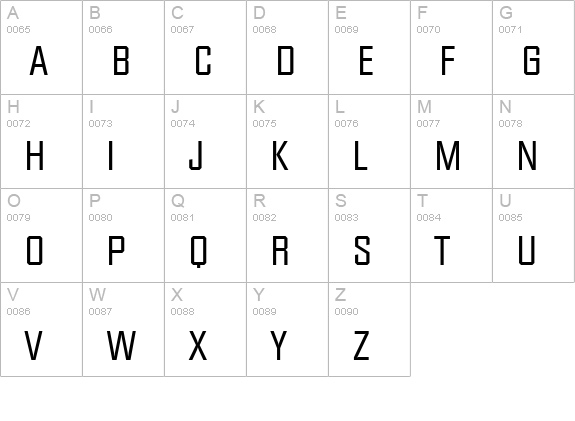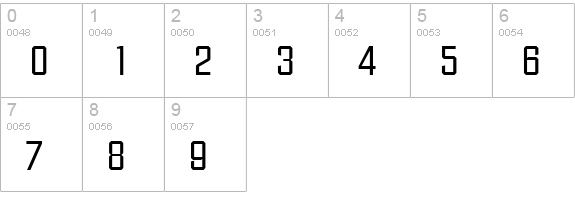
DiamanteSerial-Regular is the standard, neutral variant in the DiamanteSerial typeface family \xE2\x80\x94 well suited to general body text, paragraphs, and standard typographic work.
DiamanteSerial-Regular font is a stylish and elegant typeface that exudes sophistication and charm. With its clean lines and graceful curves, this font is perfect for adding a touch of class to any design project. Whether you're working on a logo, invitation, or website, DiamanteSerial-Regular font will make your text stand out and leave a lasting impression. The best part about DiamanteSerial-Regular font is that it is available for free download at FontsMarket.com. You can easily access this beautiful font and use it in your projects without any cost. Don't miss out on the opportunity to enhance your designs with DiamanteSerial-Regular font today!